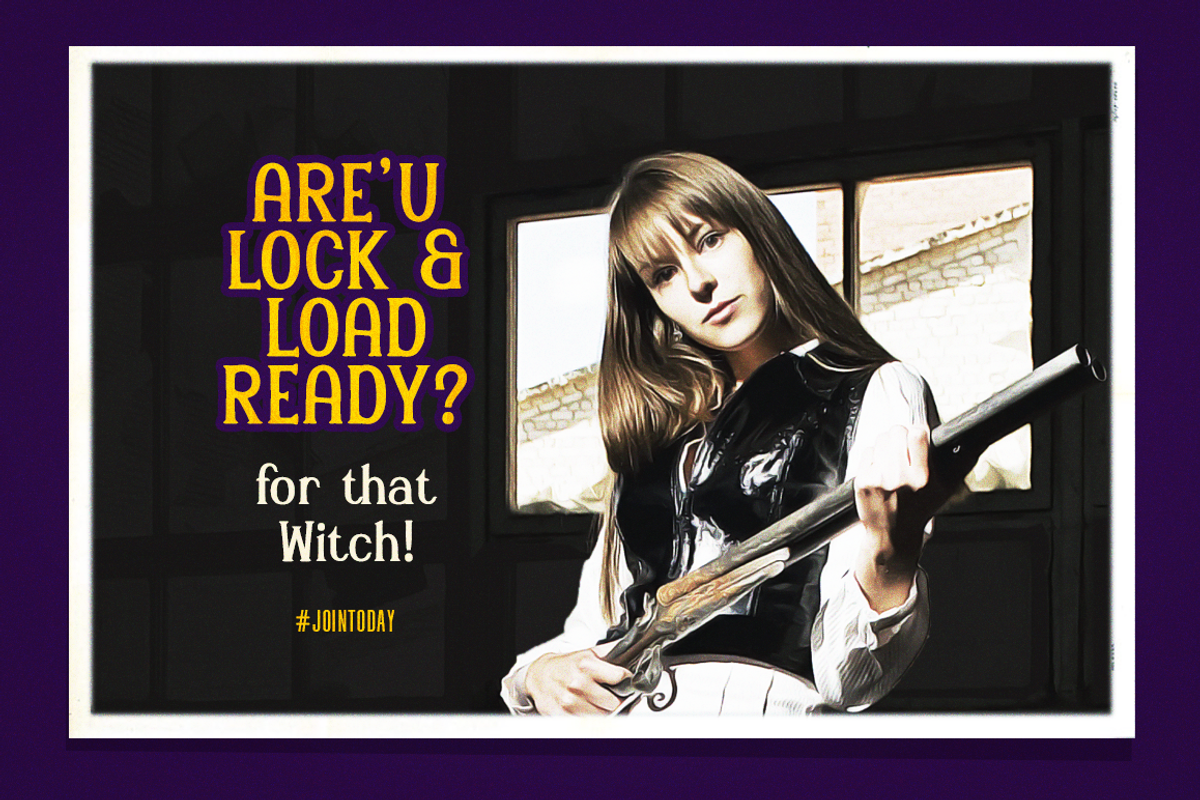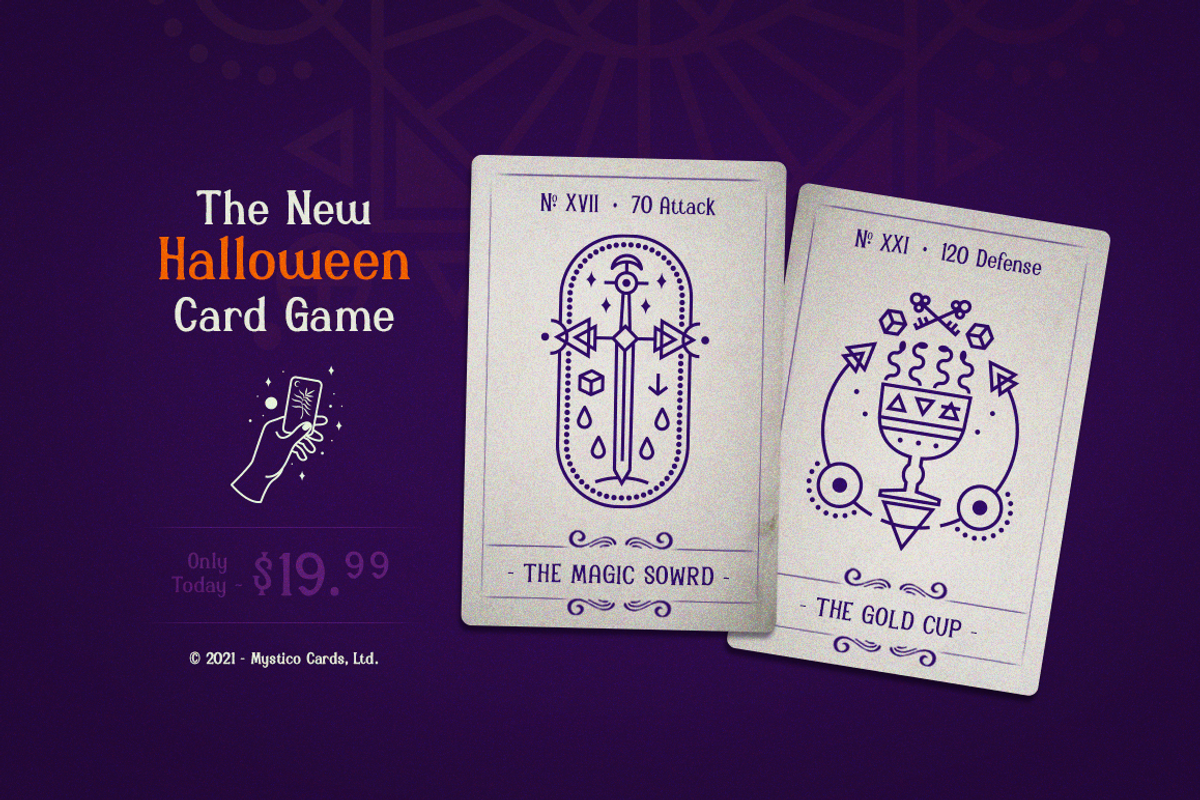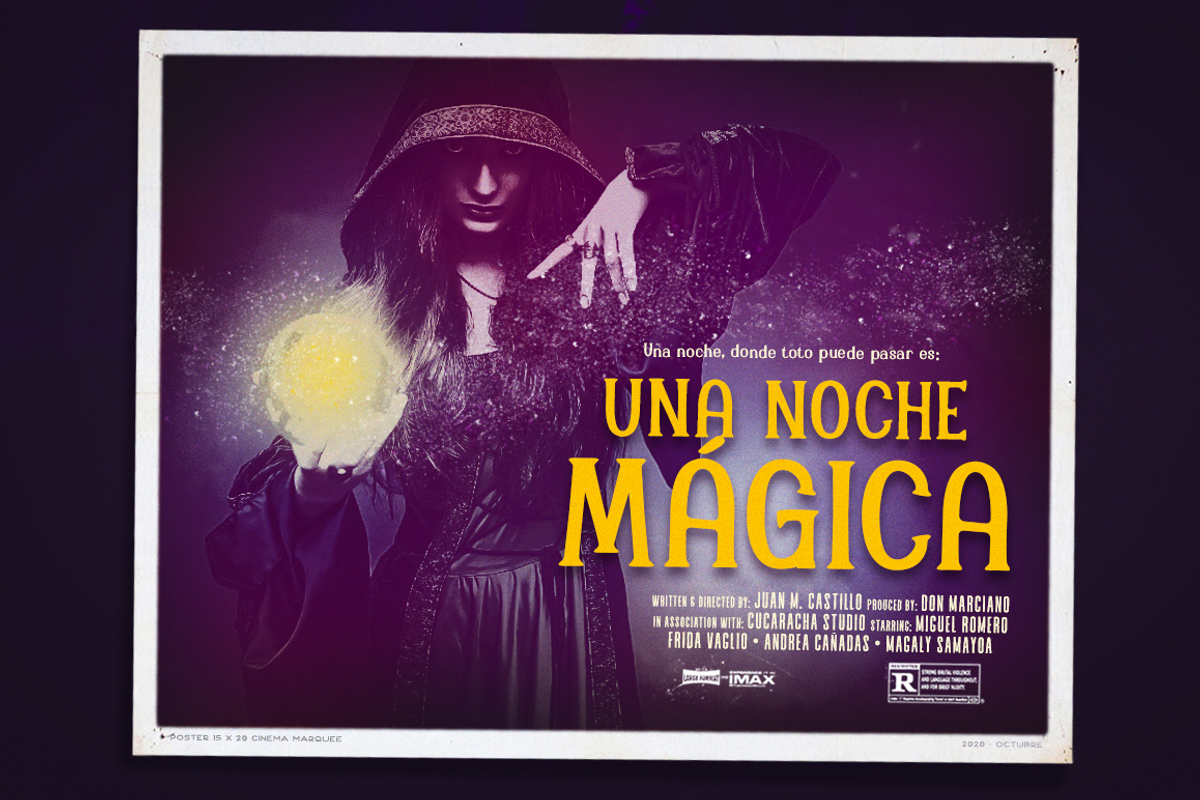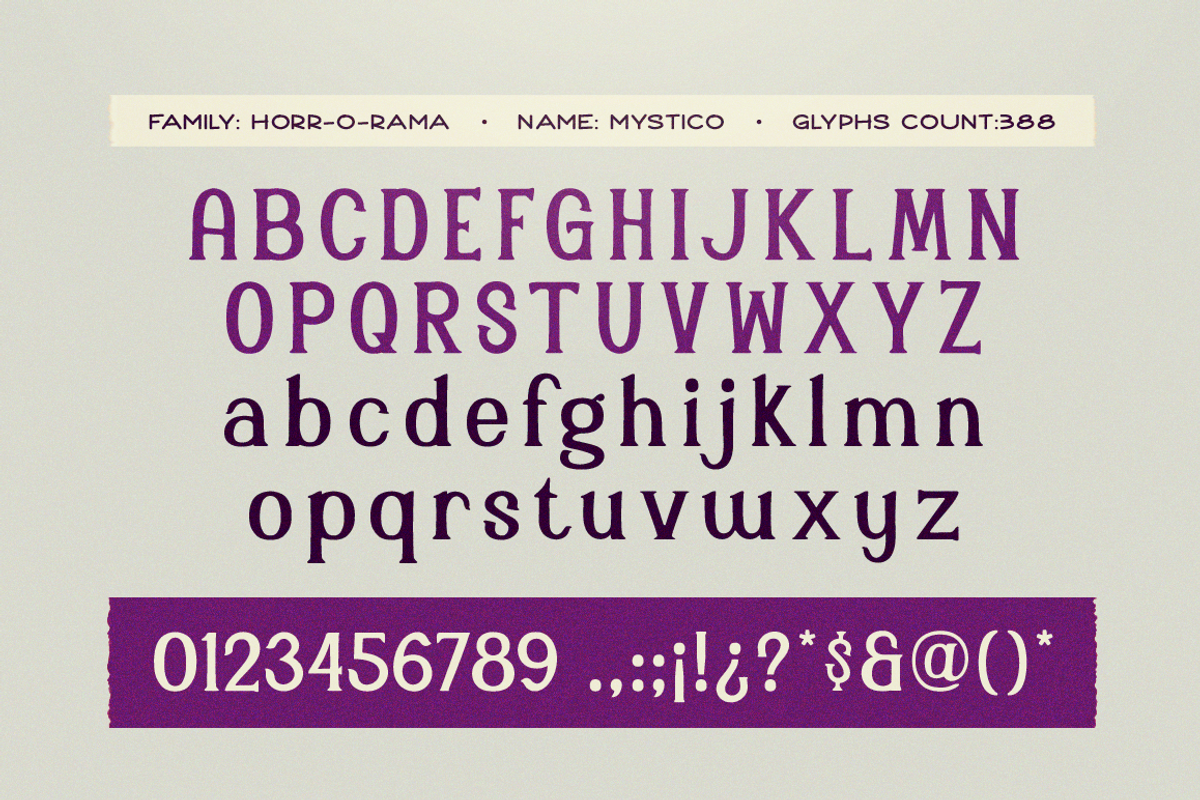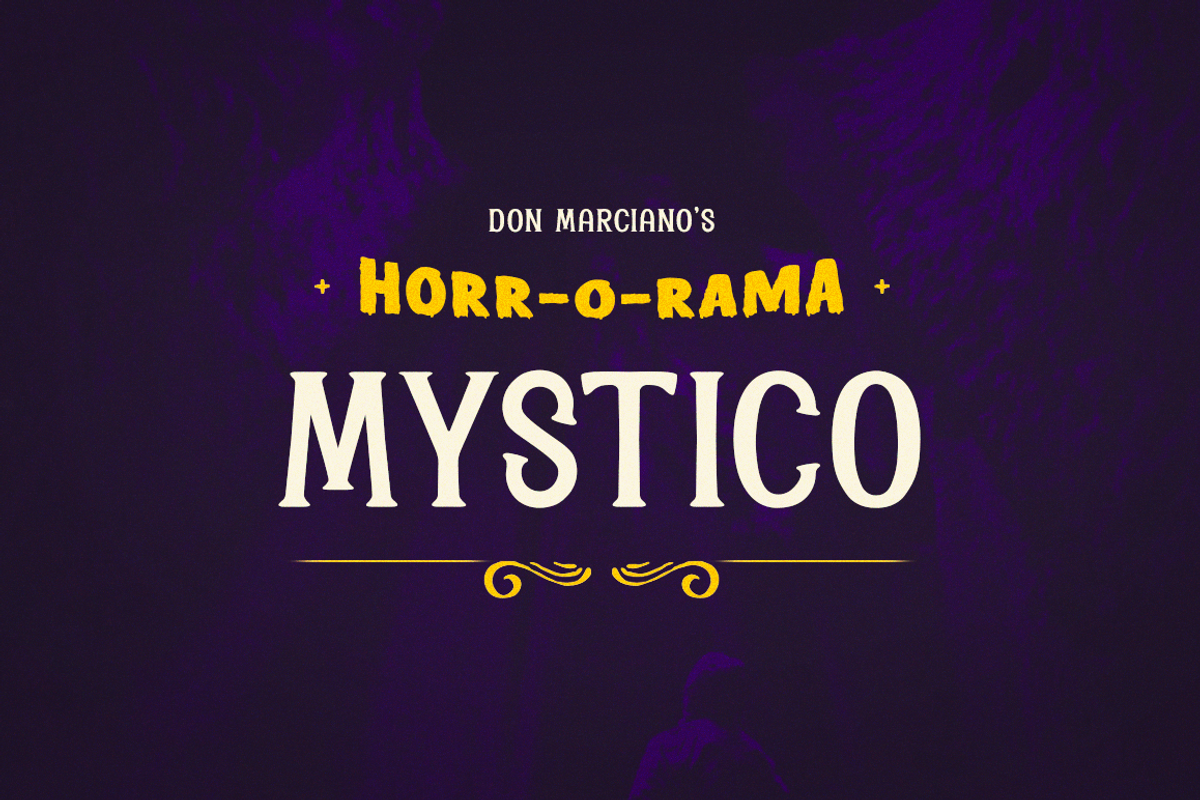
Mystico Scary Serif
Mystico is a scary serif style font part of the family called HORR-O-RAMA, design for a series of Halloween posters inspired event by a local brewery, the goal was to reach a look and feel of mid-century movie poster design; with handmade lines, comes the mysterious and future telling season fonts.